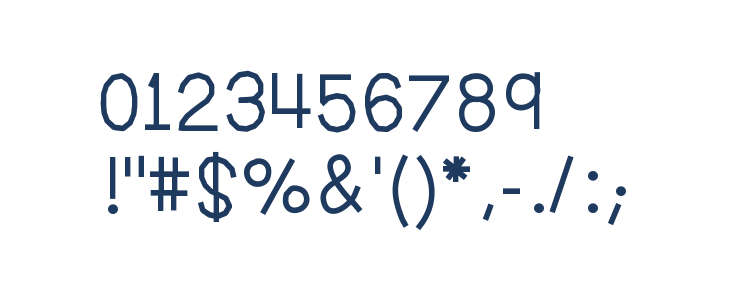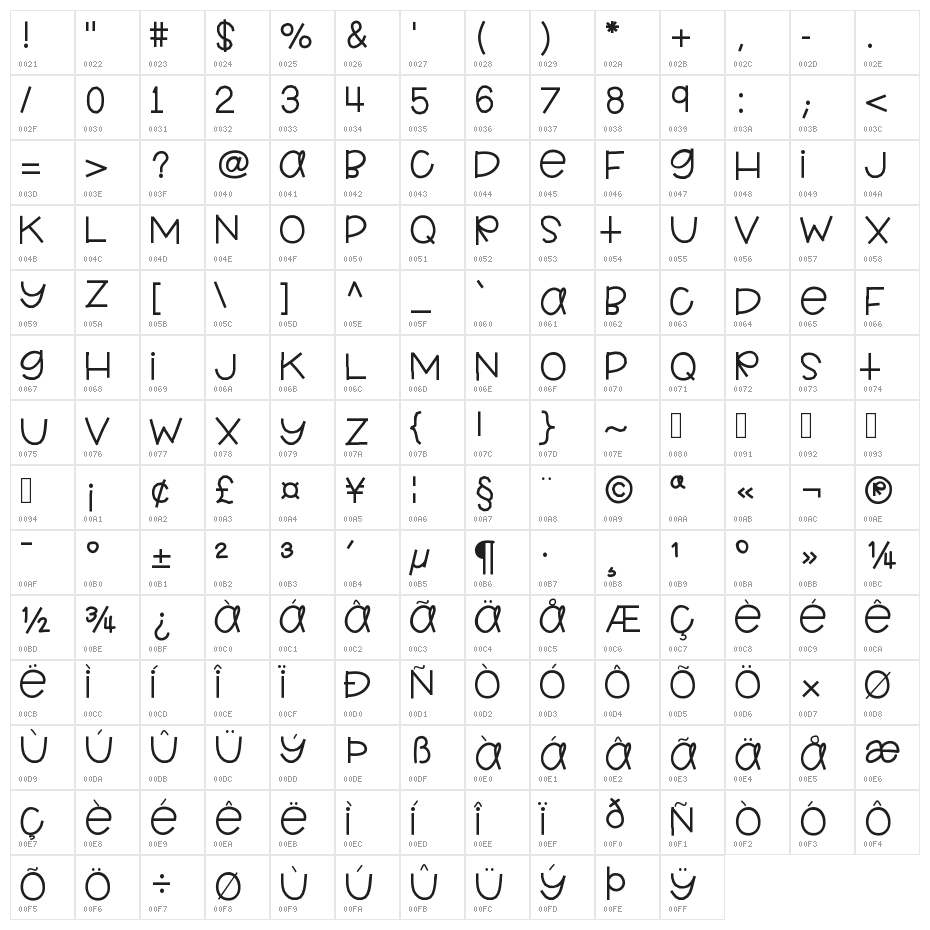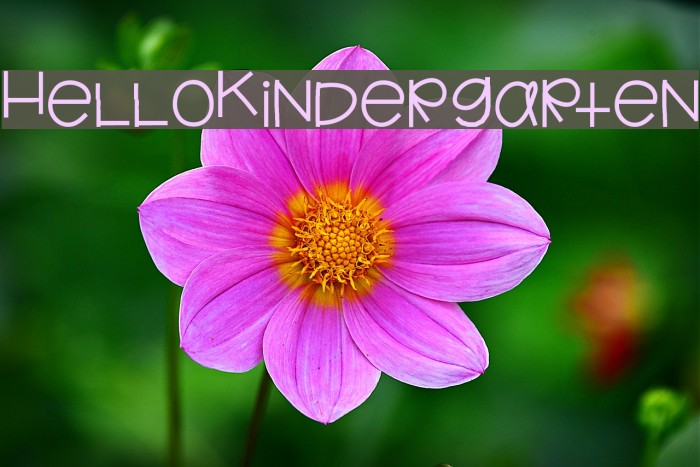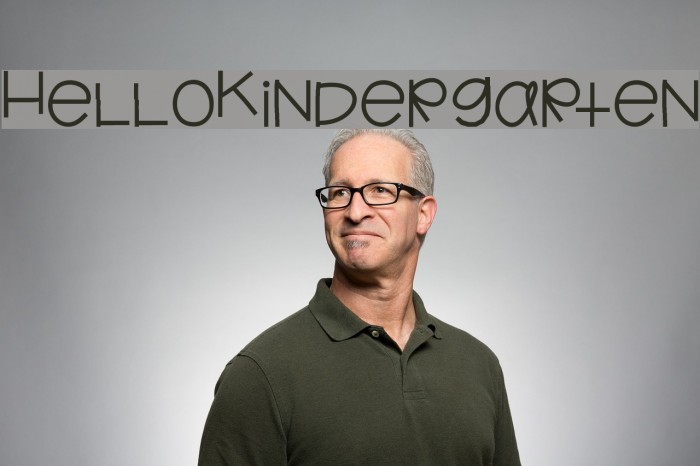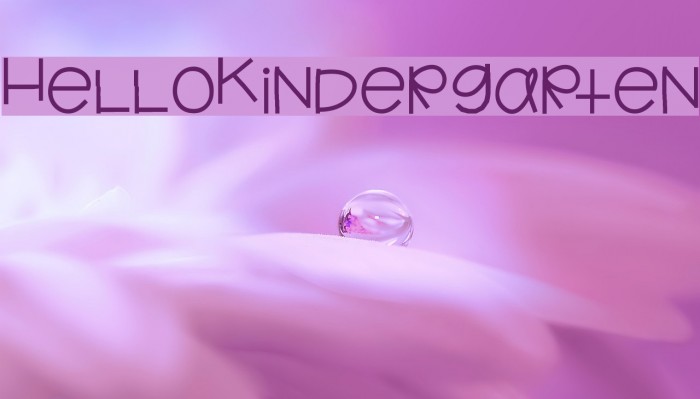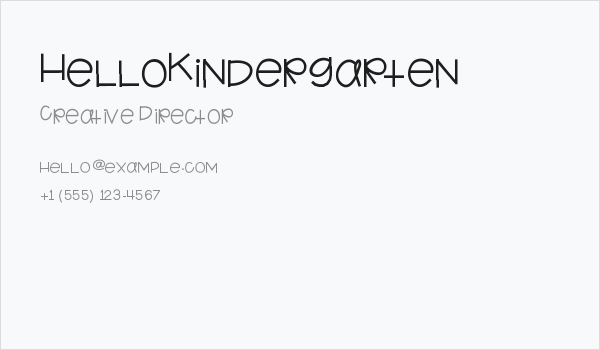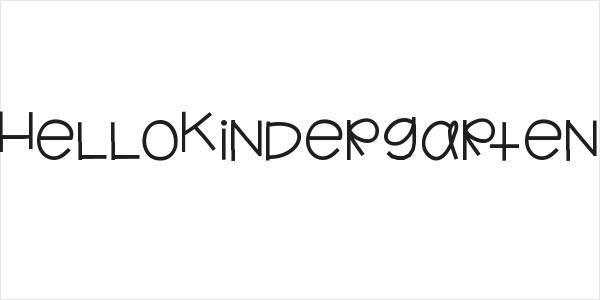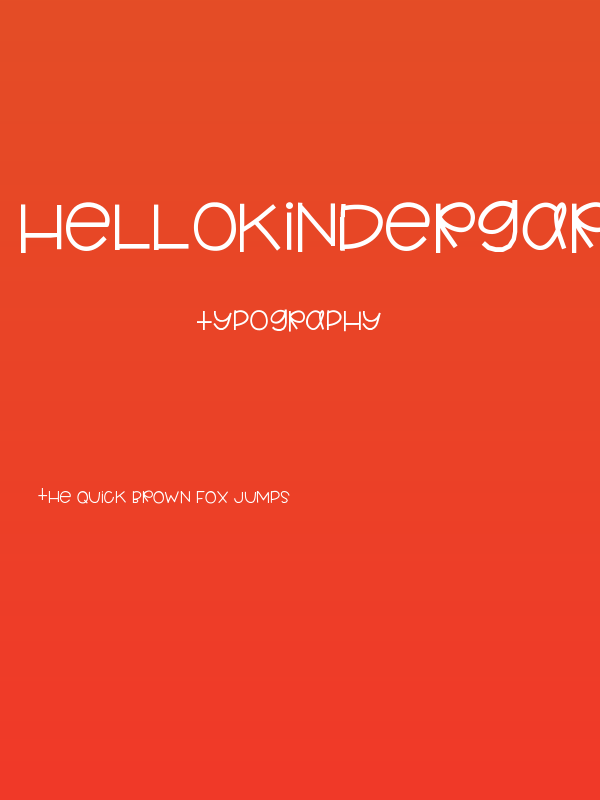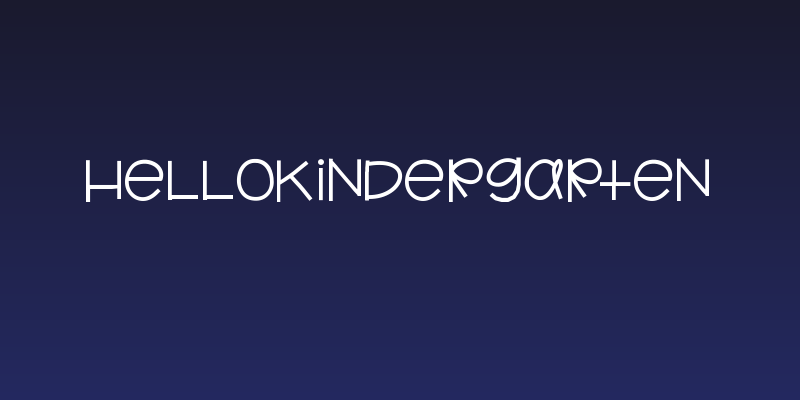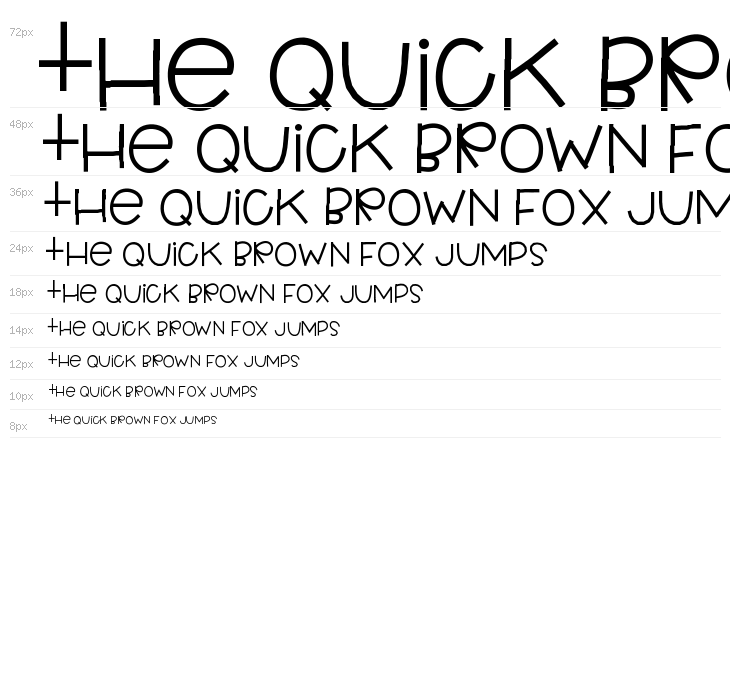
HelloKindergarten Font
This playful and whimsical font features rounded, childlike characters that evoke a sense of fun and creativity. The letters are slightly irregular, giving them a hand-drawn appearance that is both charming and approachable. The uppercase and lowercase letters maintain a consistent style, with a smooth flow and rounded edges that enhance readability. The numerals and special characters are designed to match the playful aesthetic, making them suitable for a variety of informal applications. This font is perfect for projects that require a friendly and inviting look, such as children's books, educational materials, or playful branding.
| Overall Style | Playful |
| Use Case | Headlines, Logos, Educational materials |
| Proposed Projects | Ideal for children's books, educational materials, playful branding, and creative projects. |